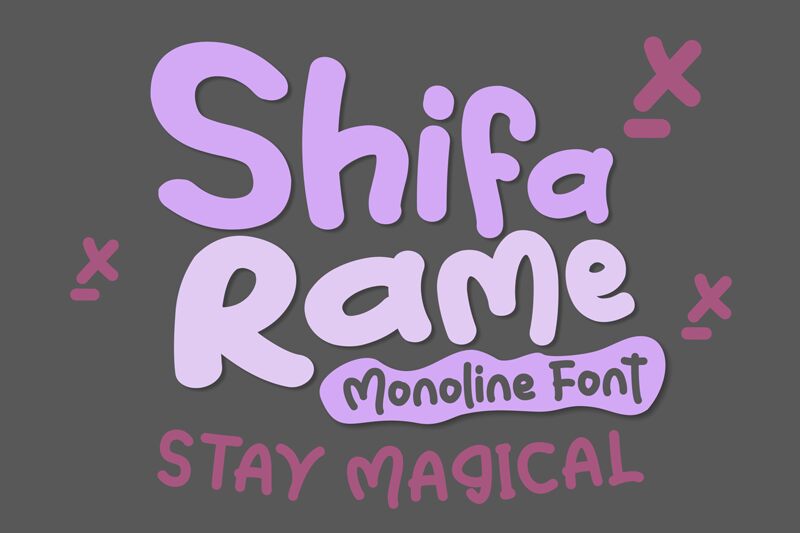
Shifa Rame font by Mabhal Studio is a free comic font with informal features and a modern vibe. Designed to resemble comic book style lettering, it carries a whimsical appearance and overall friendly tone that is ideal for casual and approachable contexts. The characters have rounded edges and an inviting posture perfect for contemporary applications.
Fill up your pages with heaping amounts of playful and approachable letters by Shifa Rame. Use the font in headlines and copy meant for children’s books, school supplies, branding, packaging, or invitations. In the digital sphere, incorporate it into applications, websites, and logos. Animated videos, social media posts, and YouTube thumbnails are also other applications where the font can make a difference.